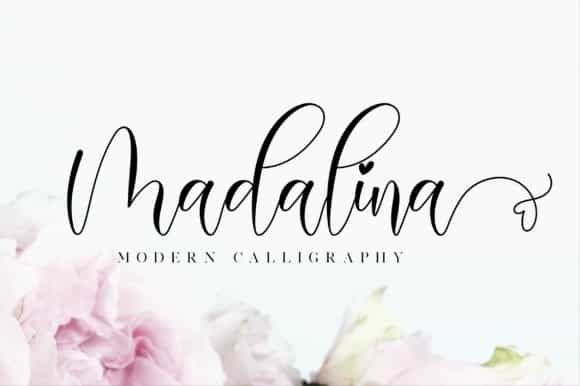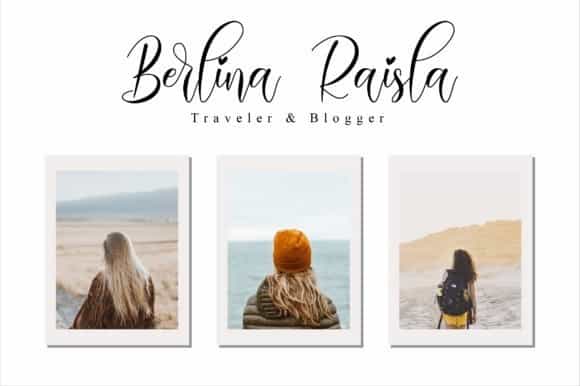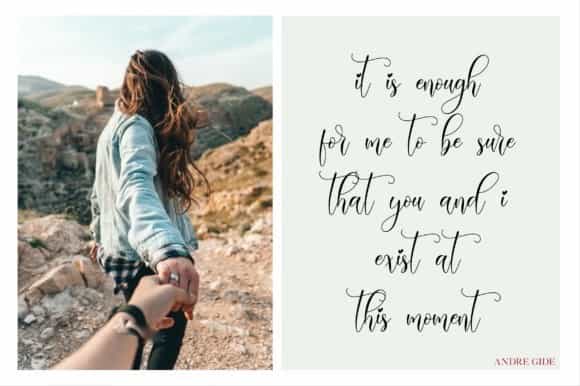
Madalina is a Calligraphy script font which has the bouncy connection between the consonant and vowel. This stunningly crafted typeface was additionally provided with unique lowercase alternates and gorgeous uppercase. This font is just the right logo, greeting card, tittle, quote and any other project that needs a cute as well as beautiful touch.